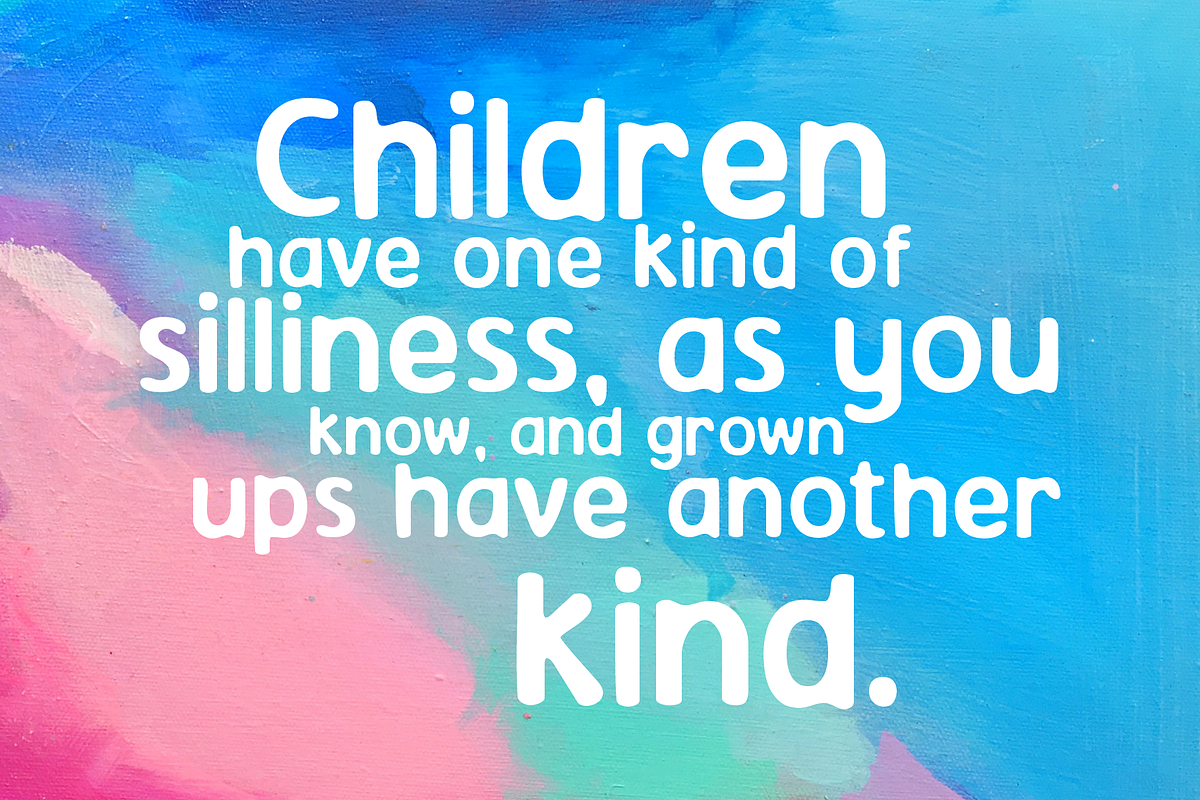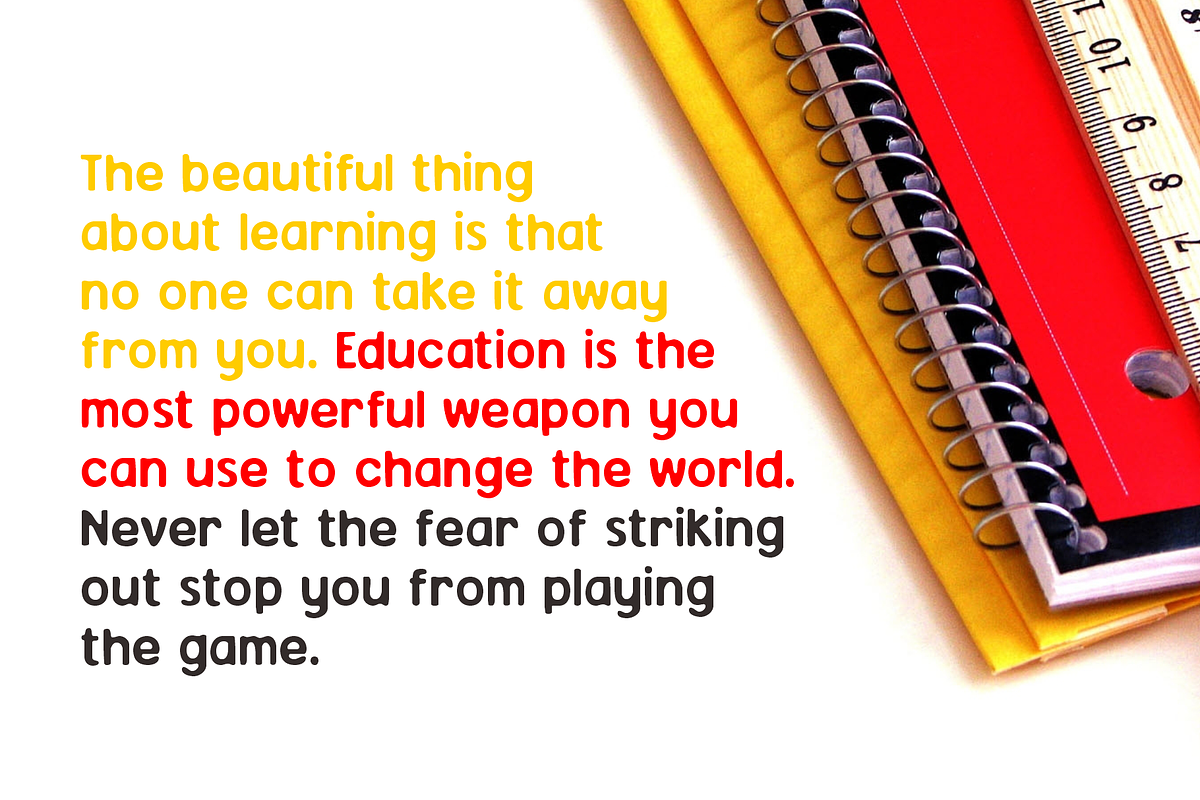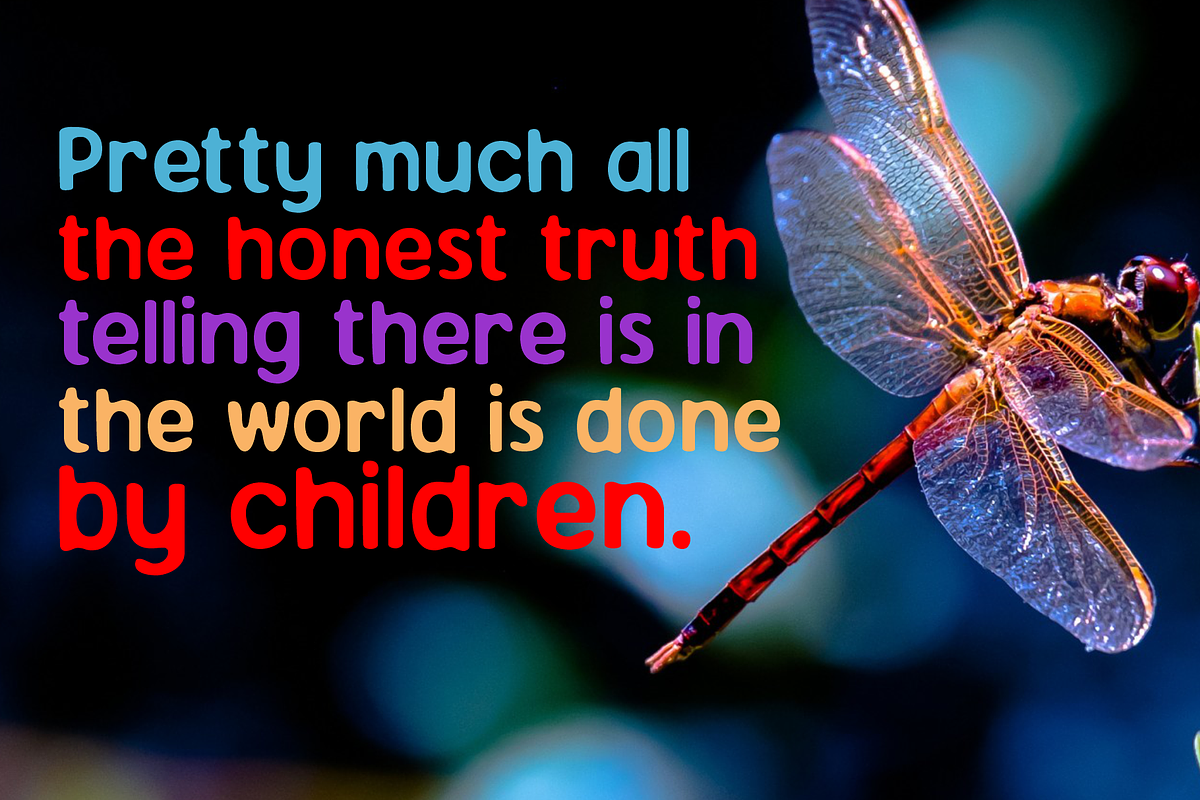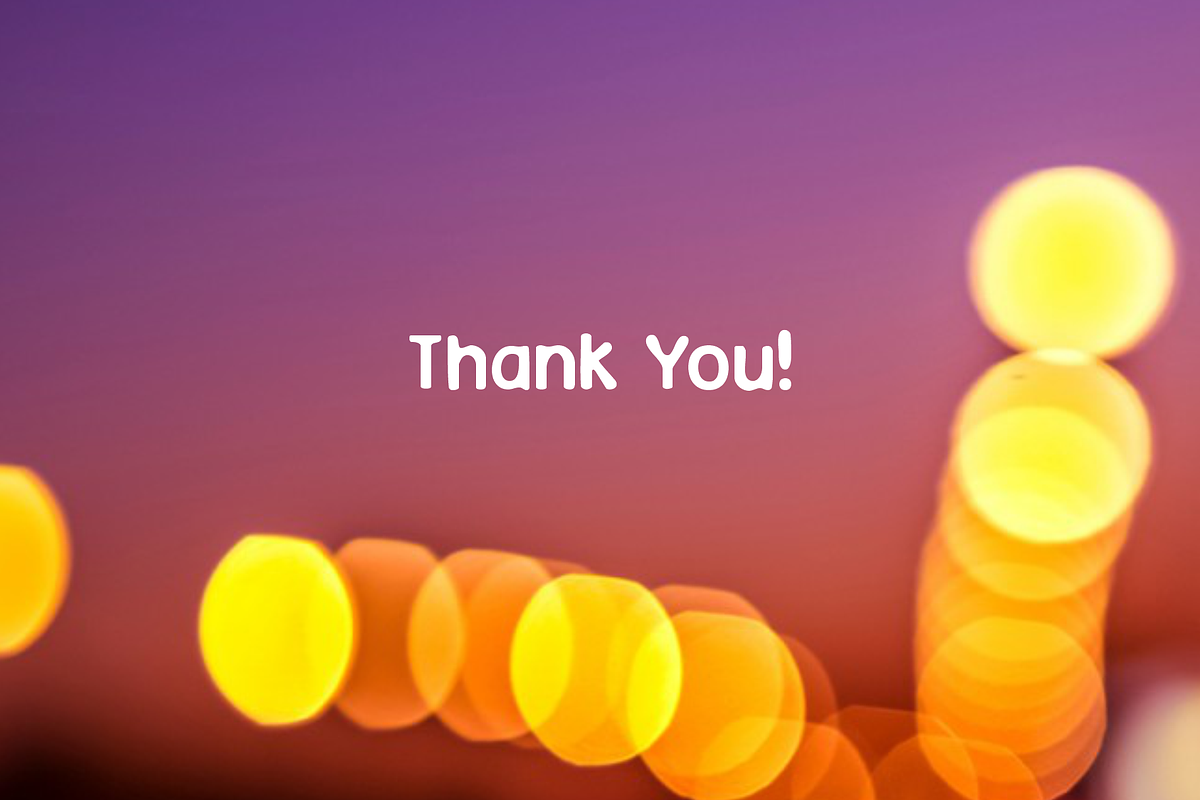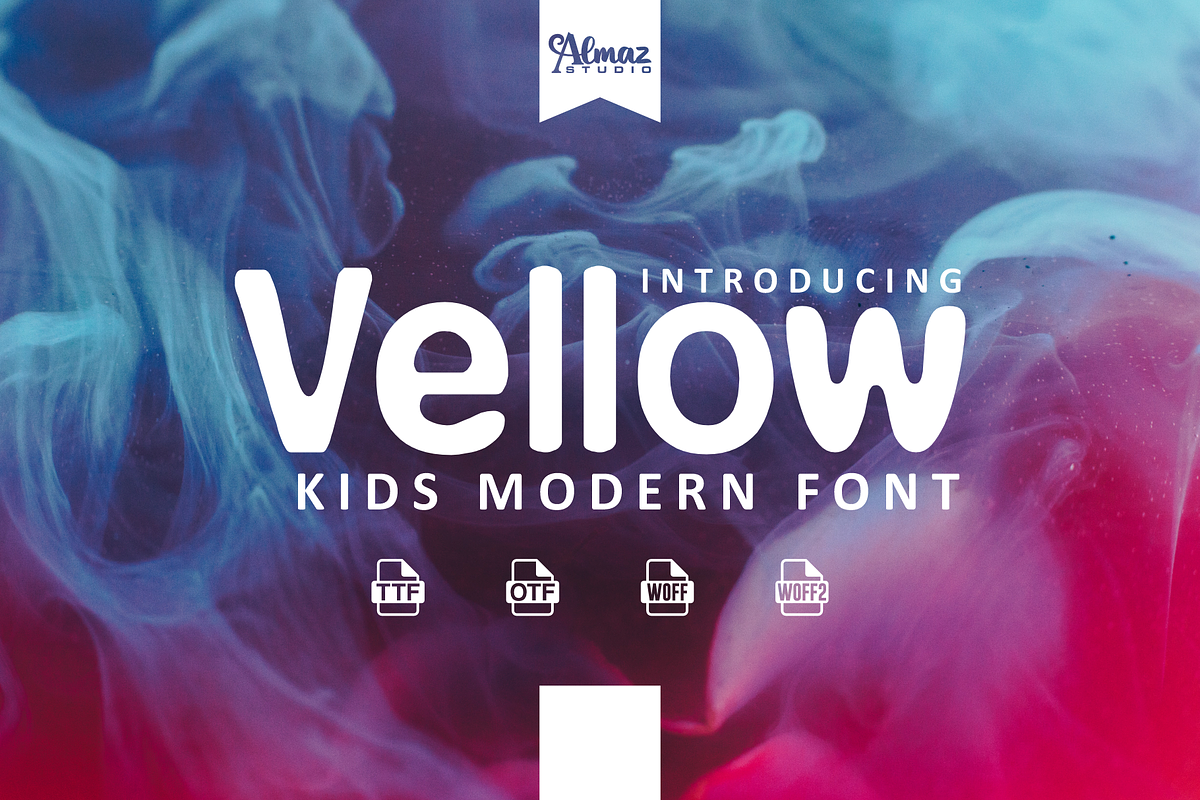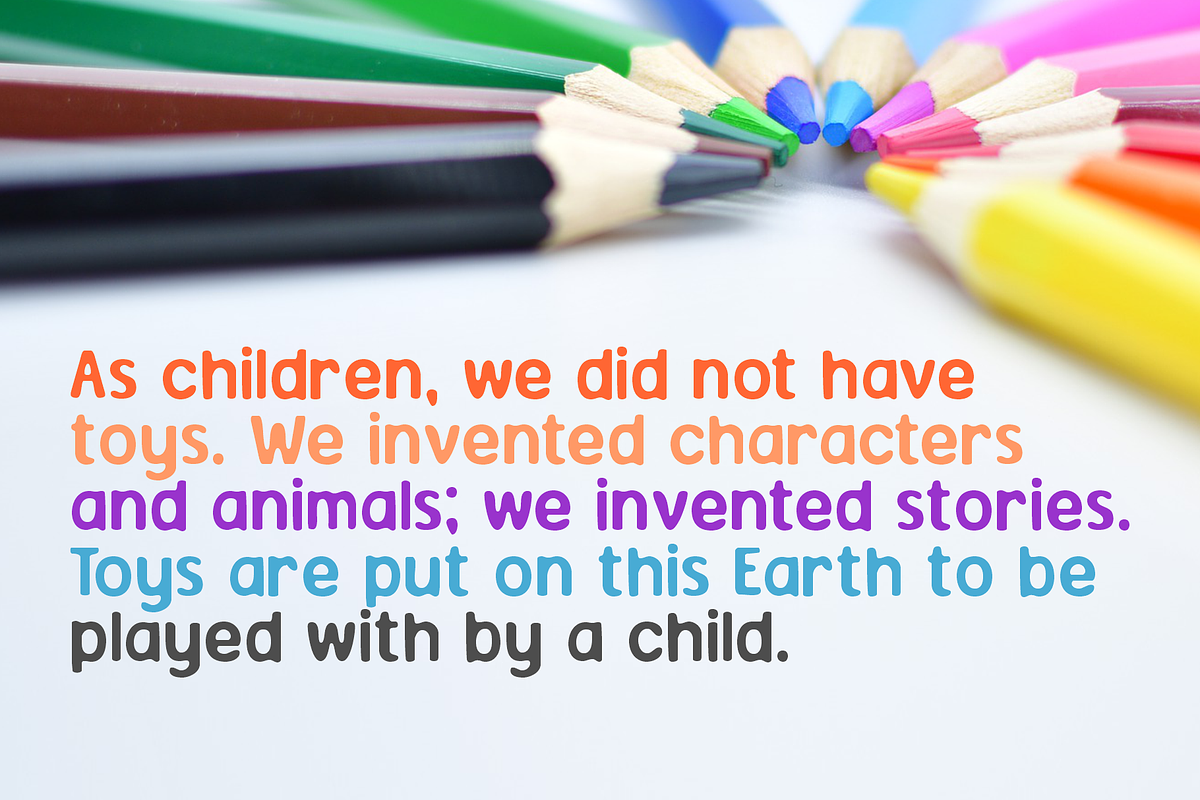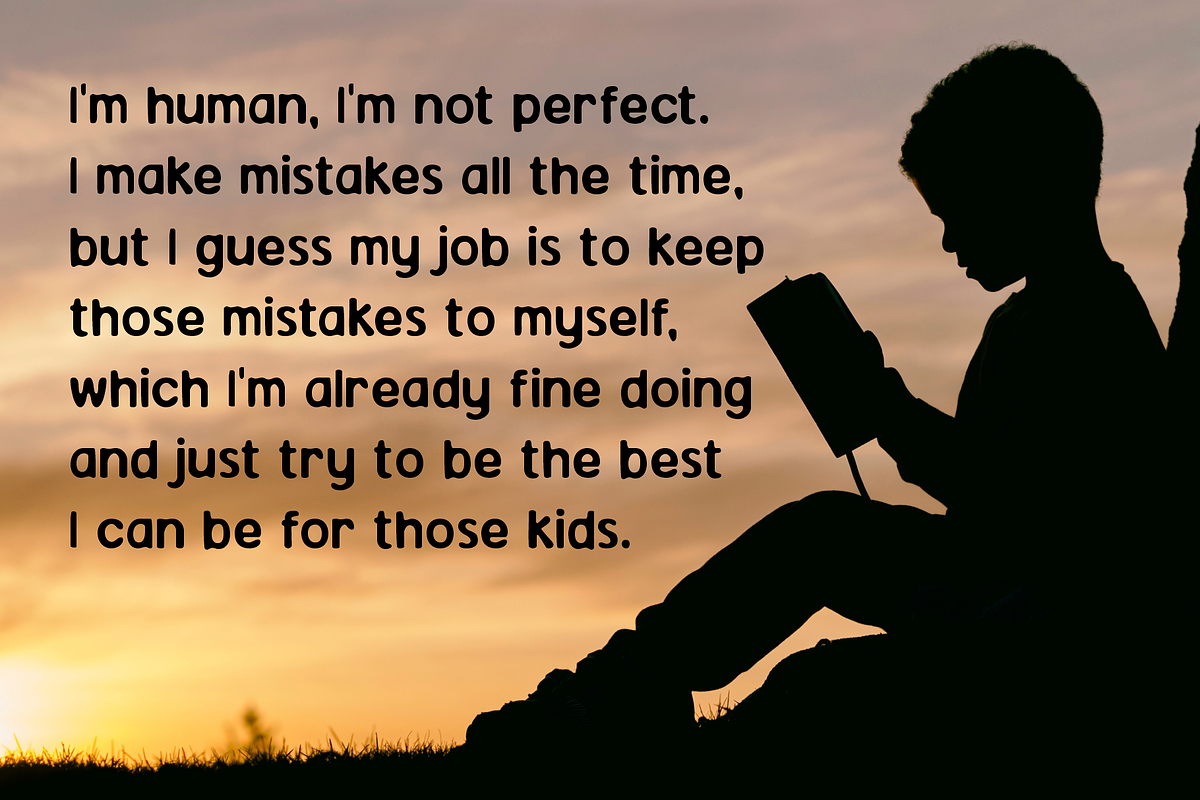
Vellow
Vellow made for text display purposes inspired by handwritten font with wavy style. We crafted this font for your design project. Support Multilanguage and you can easily create a simple, clean, cool logo, branding, and promotion with this font. Vellow brings a modern and strong impression to your design make this font suitable as the main text / header text on a website or layout design. Vellow is suitable for blog titles, headers, promotional text, call to actions and more.
- Complete characters uppercase, lowercase, numeral, and punctuations